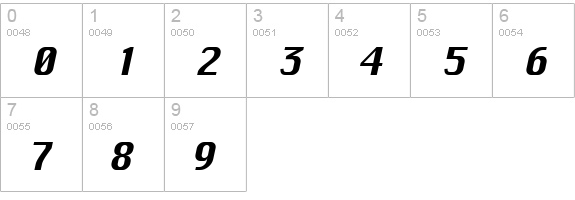
Chicane Italic Font Details
Chicane Italic is a distinctive, italic variant in the Chicane typeface family \xE2\x80\x94 well suited to design and typography projects.
Chicane Italic font exudes elegance and sophistication with its sleek and modern design. The italicized style adds a touch of flair and sophistication to any project, making it perfect for creating stylish and contemporary designs. The fluid lines and graceful curves of Chicane Italic font effortlessly capture attention and convey a sense of refinement. Best of all, Chicane Italic font is available for free download at FontsMarket.com. This means that you can easily access this stunning font and incorporate it into your projects without any cost. Whether you're working on a branding project, website design, or any other creative endeavor, Chicane Italic font is sure to elevate your work with its timeless beauty and versatility. Download Chicane Italic font today and add a touch of luxury to your designs.